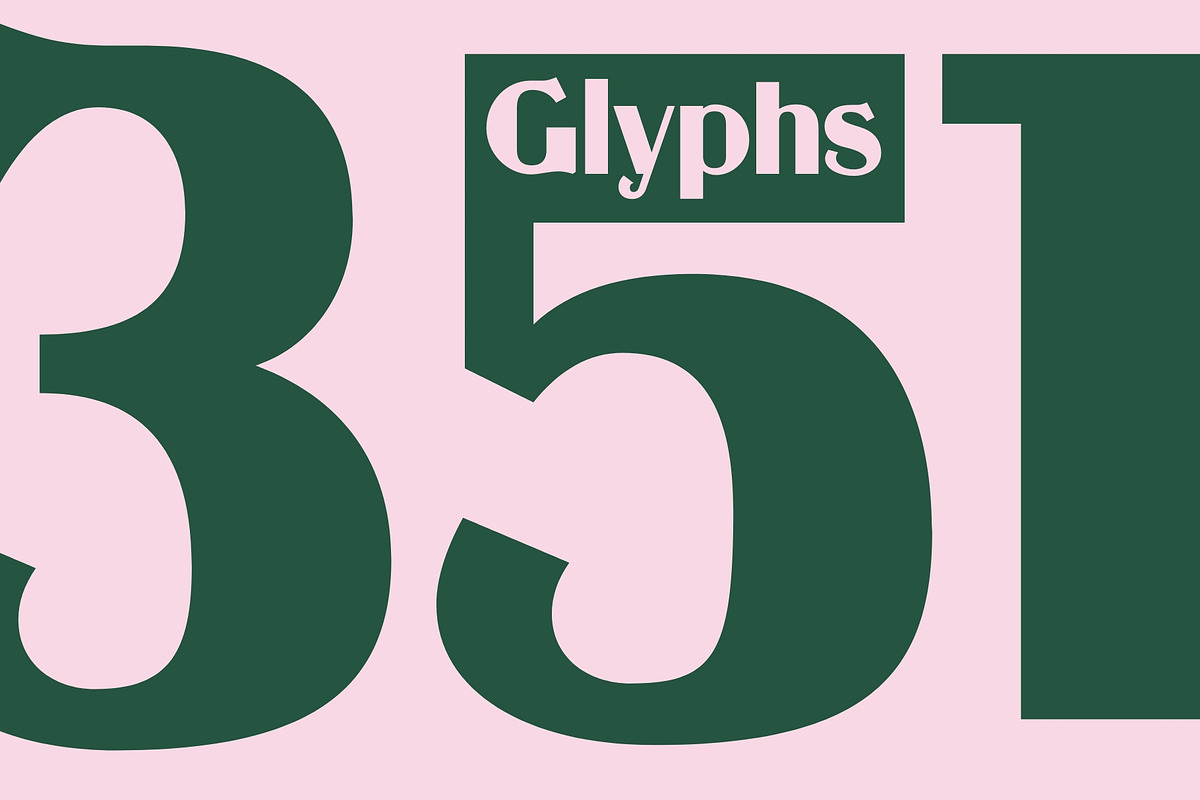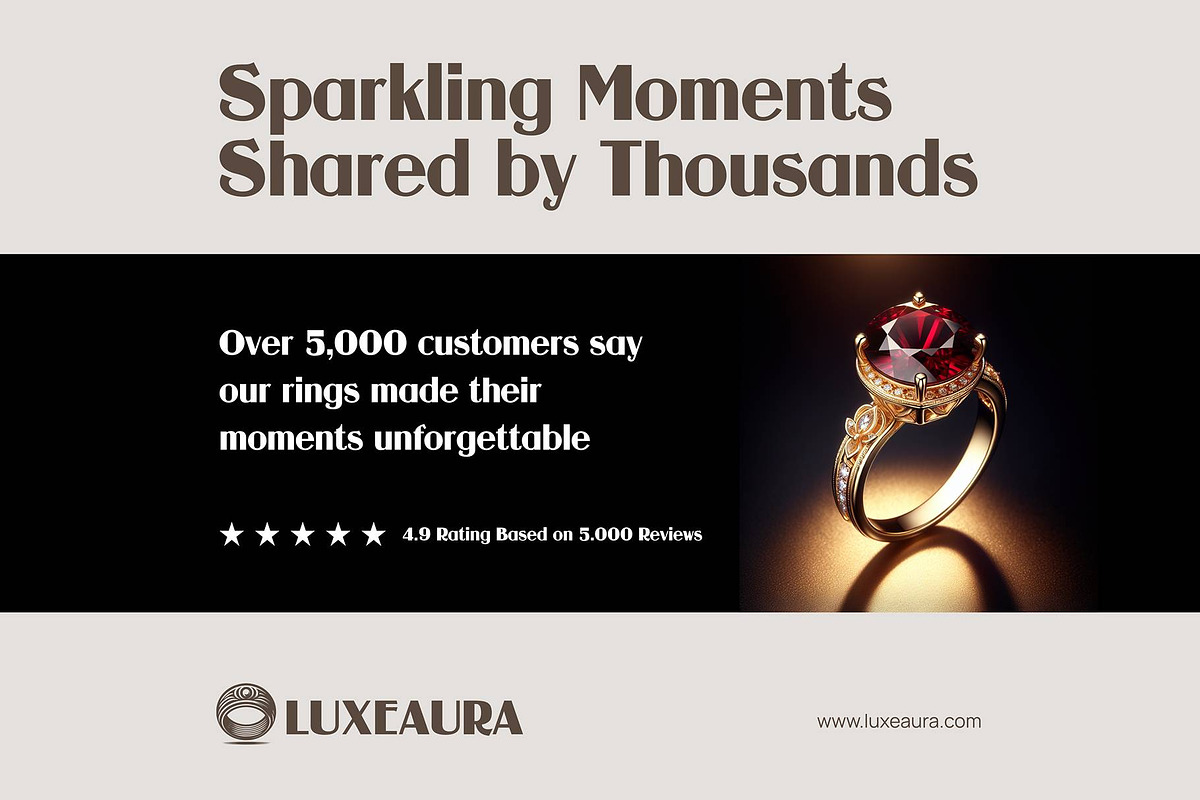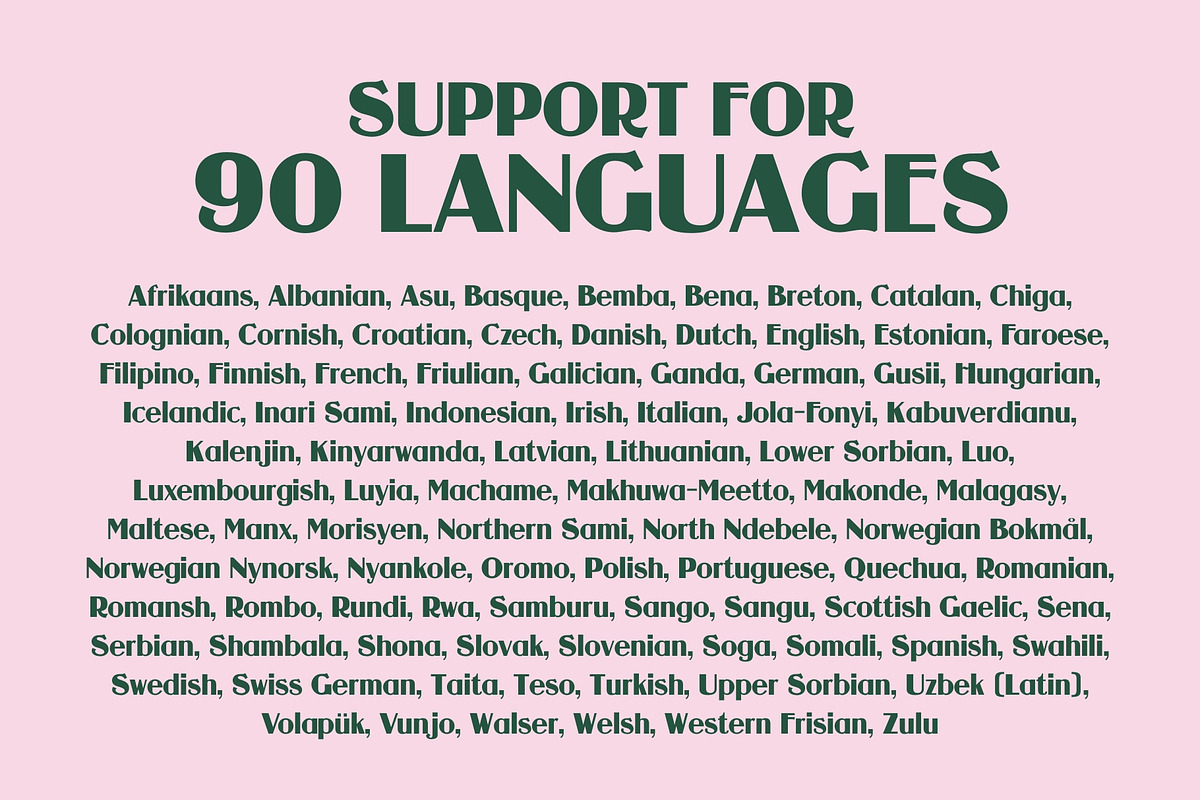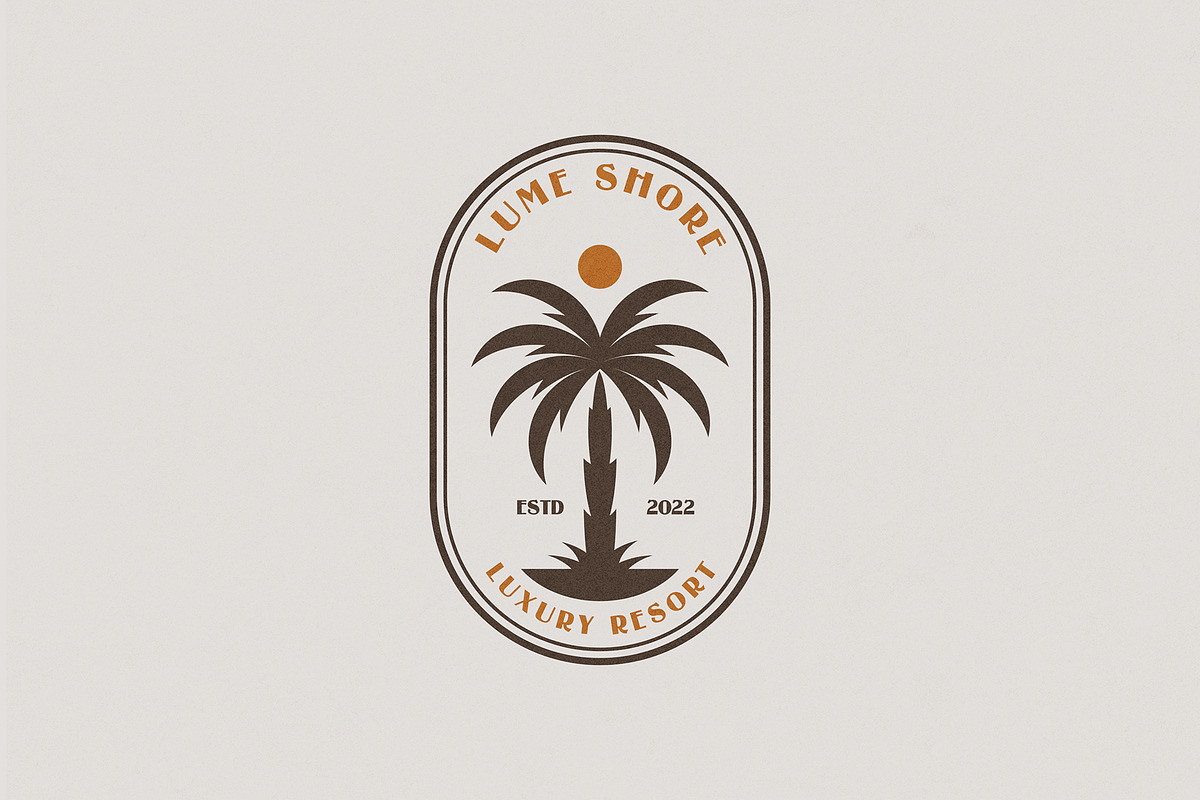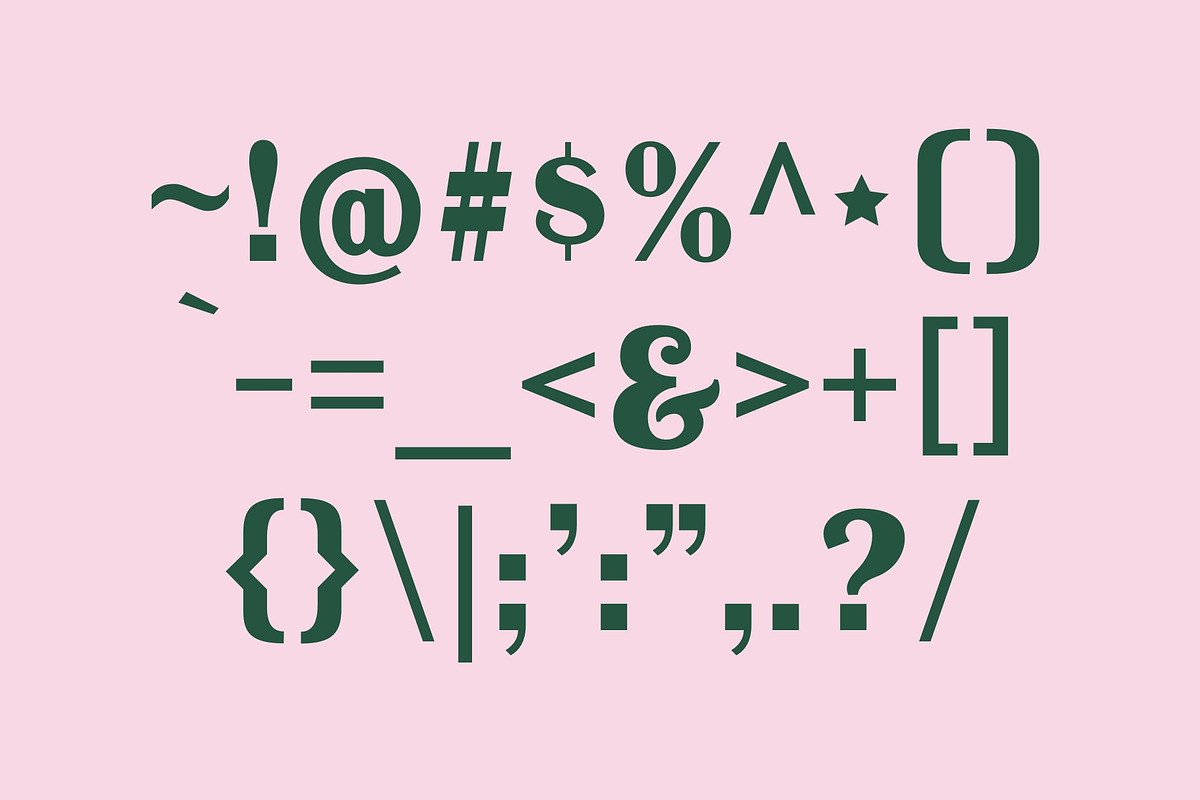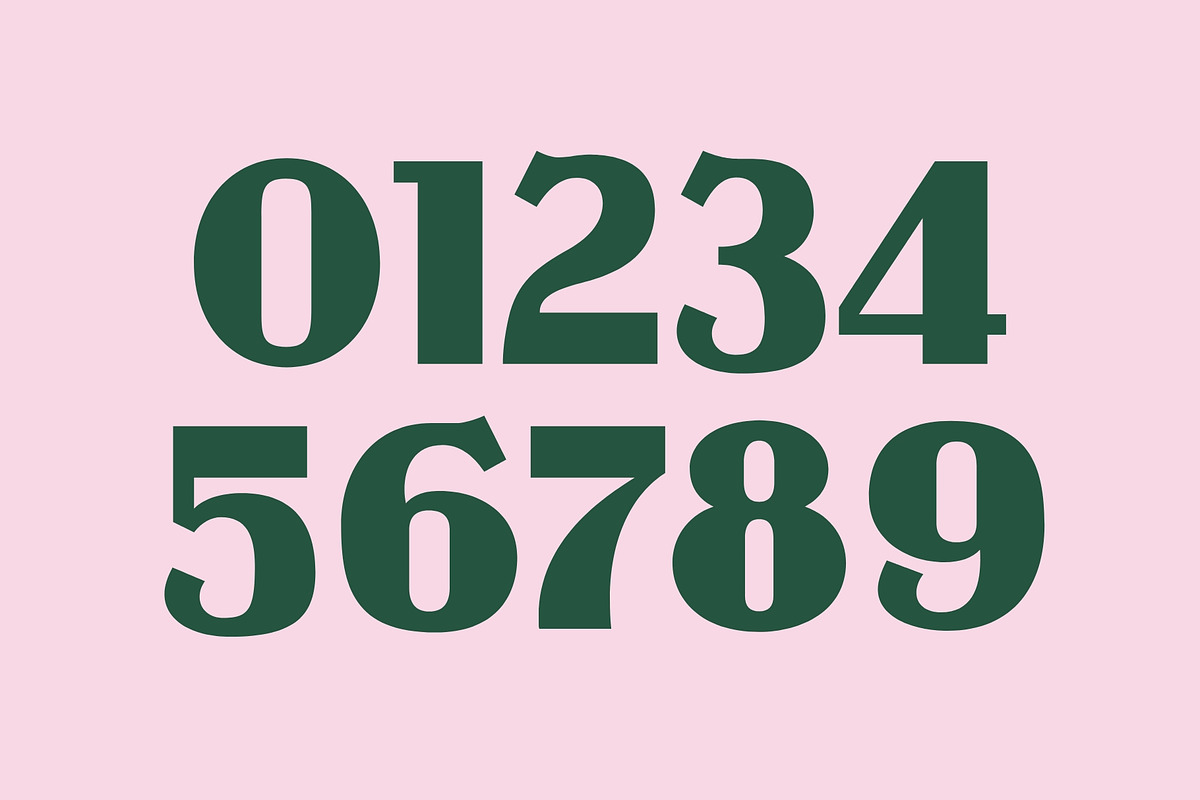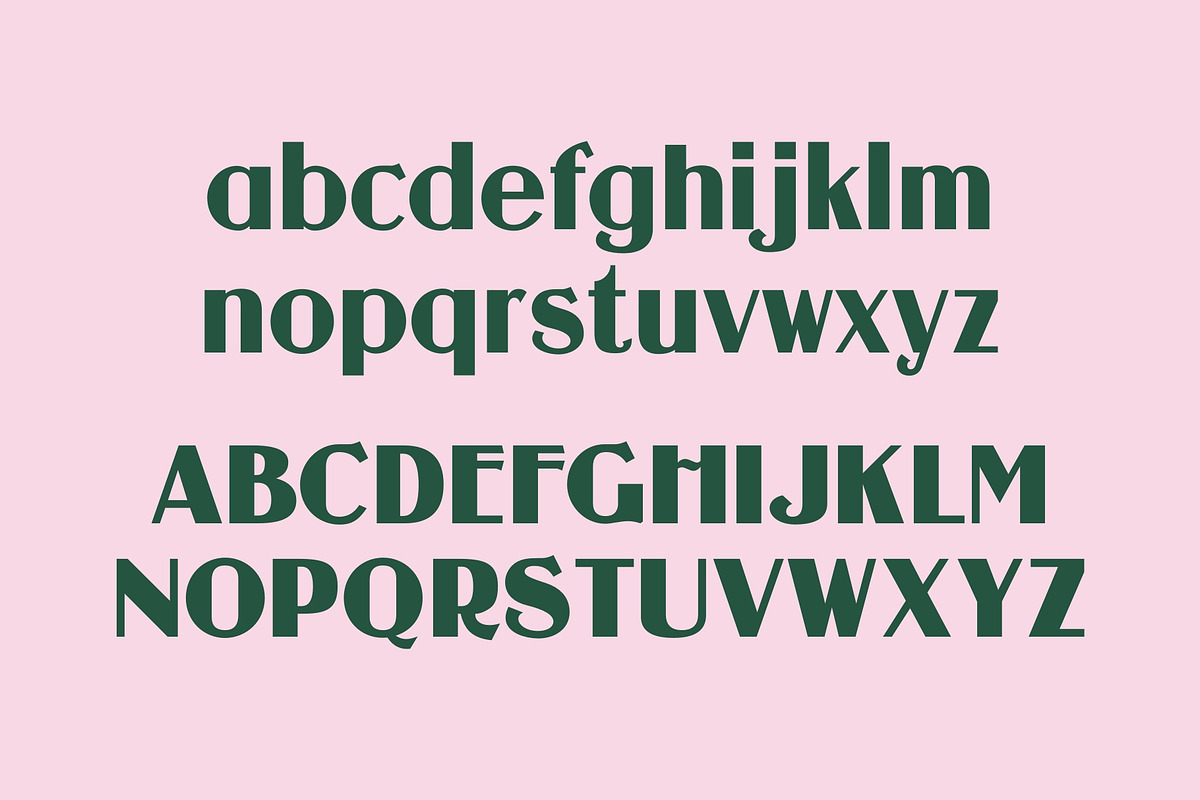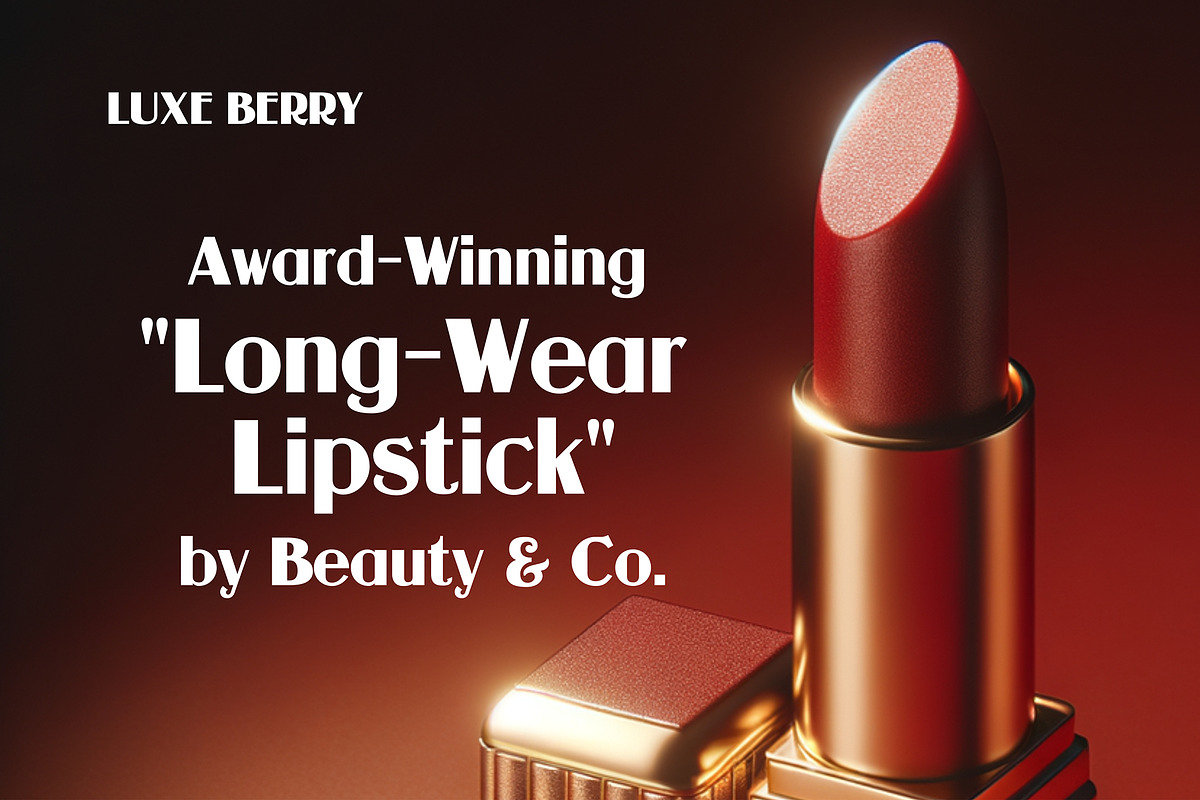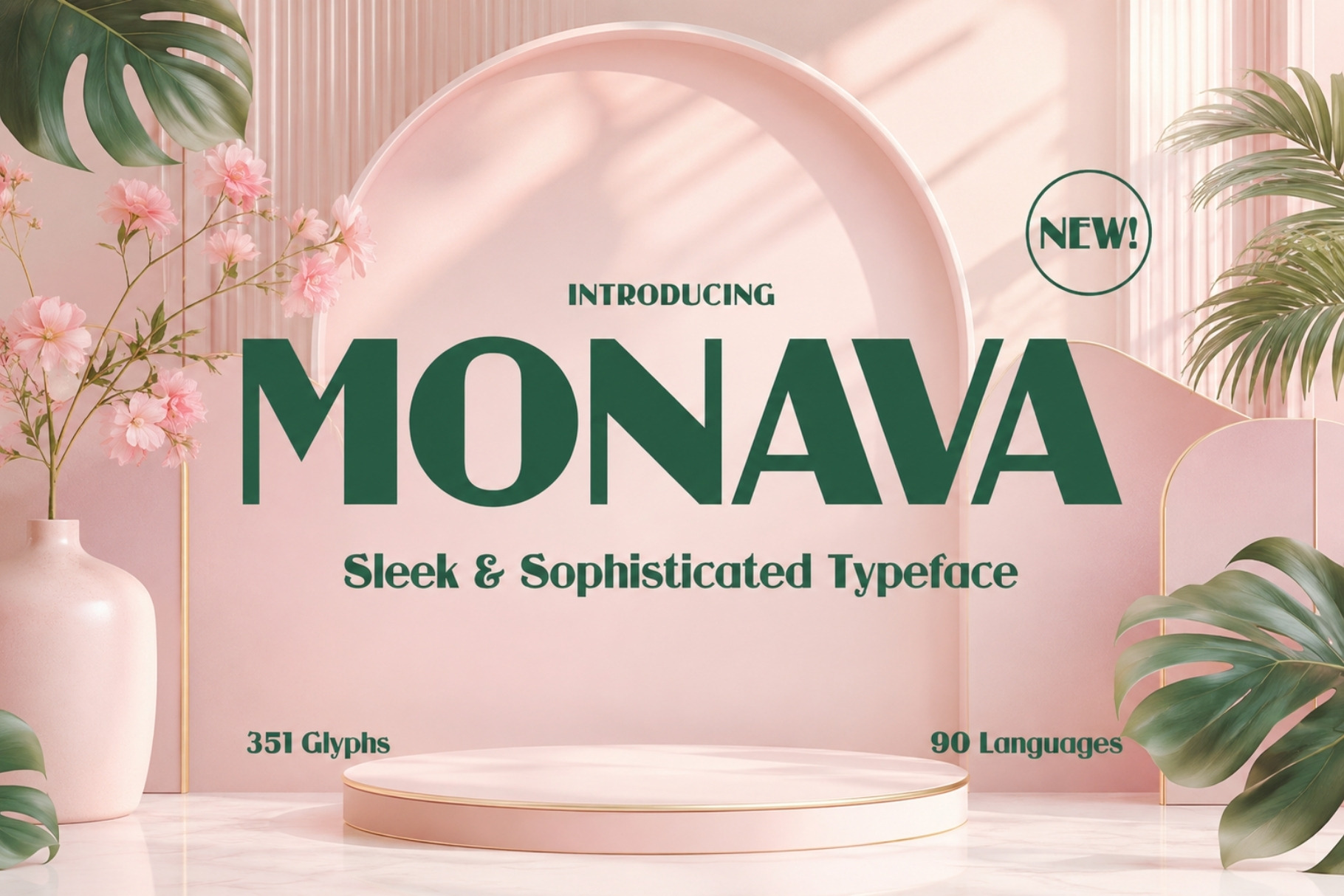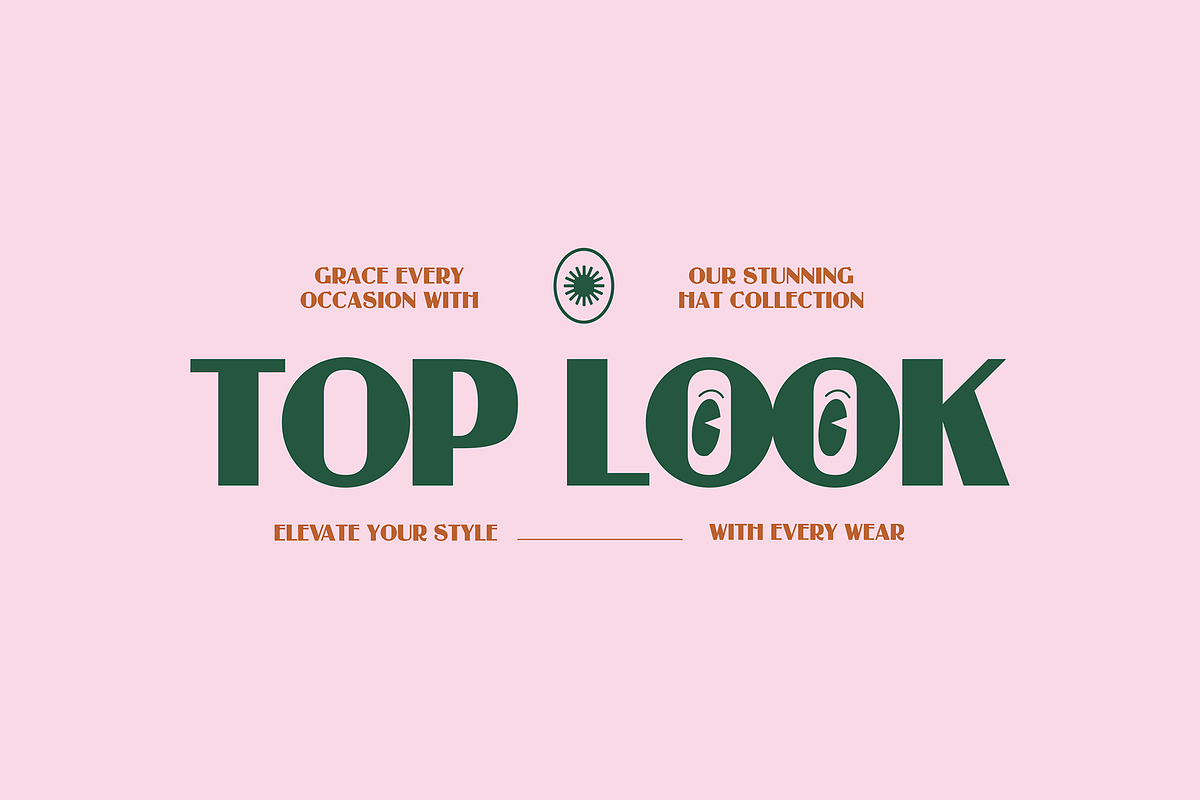
Monava - Sophisticated Typeface
Monava is a sleek and sophisticated sans-serif typeface crafted for those who appreciate timeless design with a modern twist. With 351 meticulously designed glyphs and multilingual support for over 90 languages, Monava offers unmatched versatility for global creators.
Its clean lines, balanced proportions, and subtle elegance make it a perfect choice for branding, editorial layouts, websites, packaging, logos, and everything in between. Whether you're building a luxury label or designing a contemporary digital interface, Monava delivers clarity, confidence, and class.
Elevate your next project with a font that speaks fluent design—elevate it with Monava.